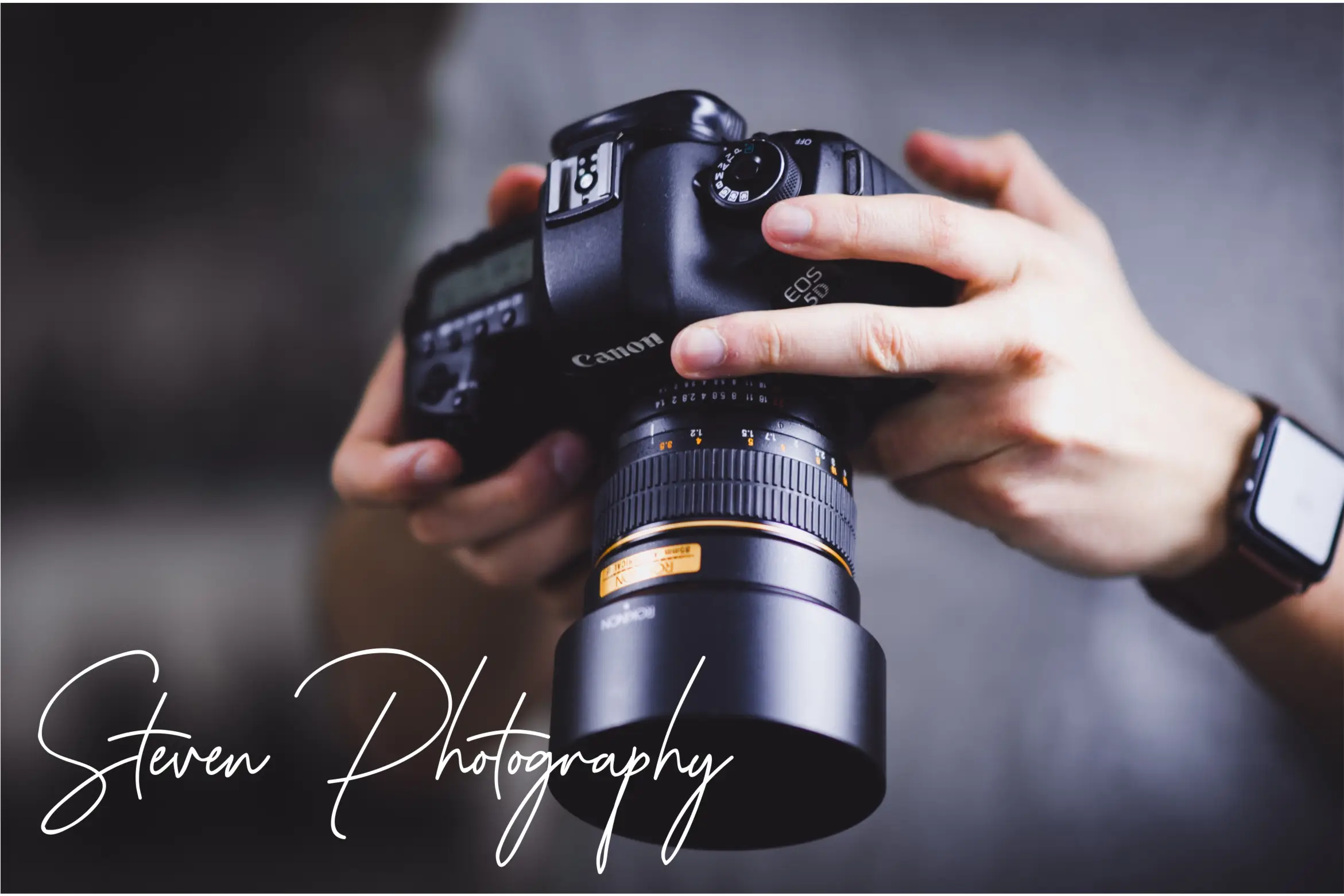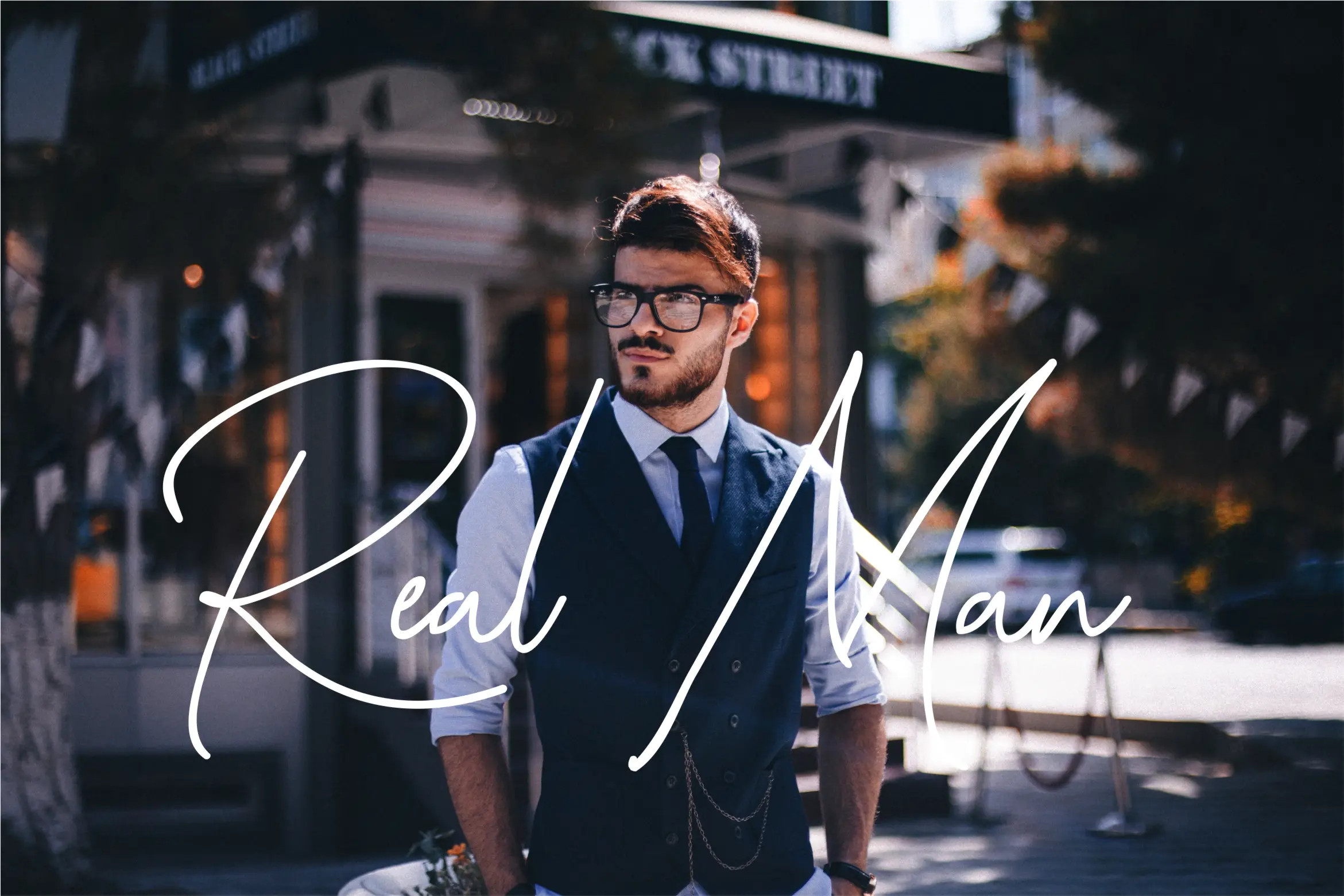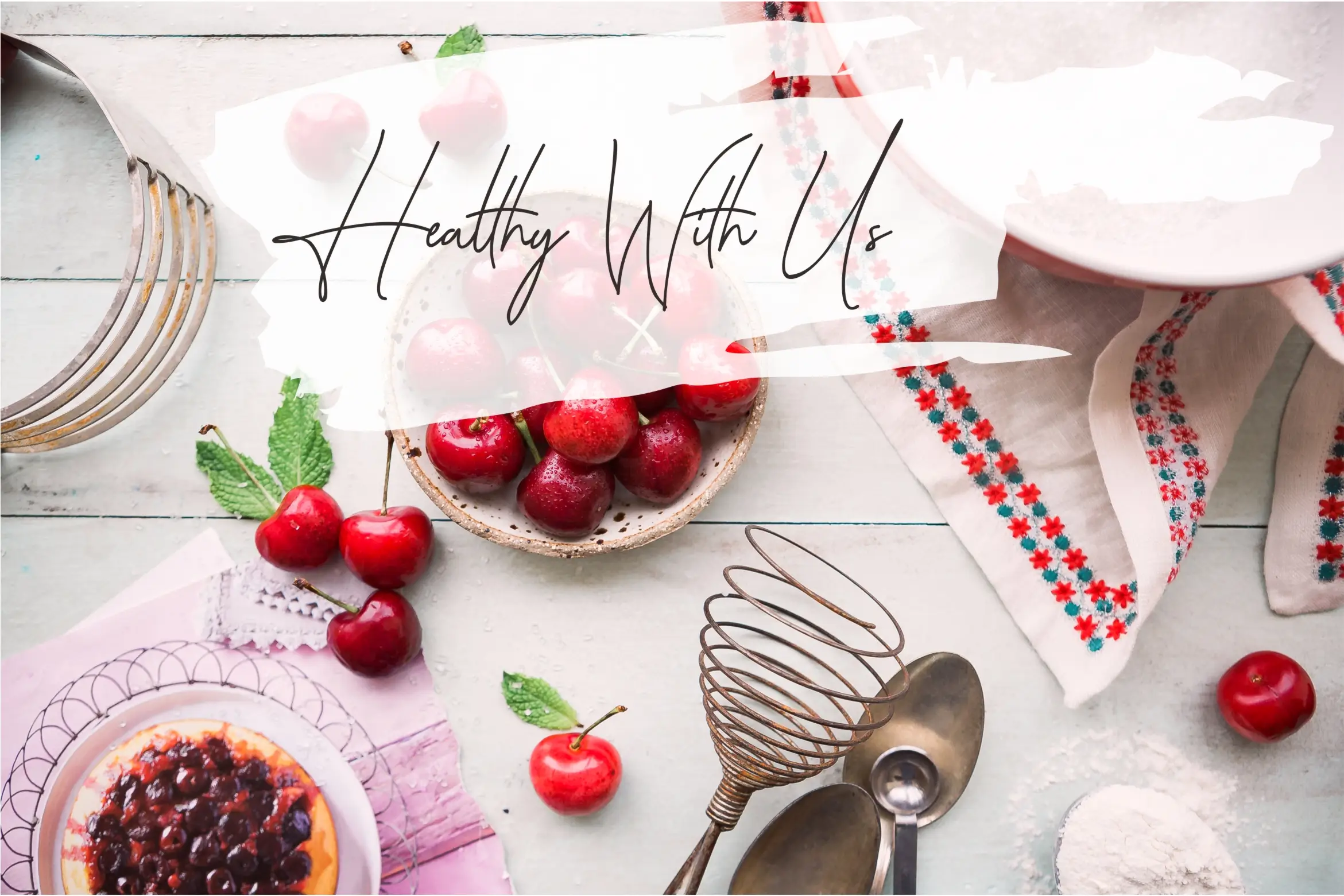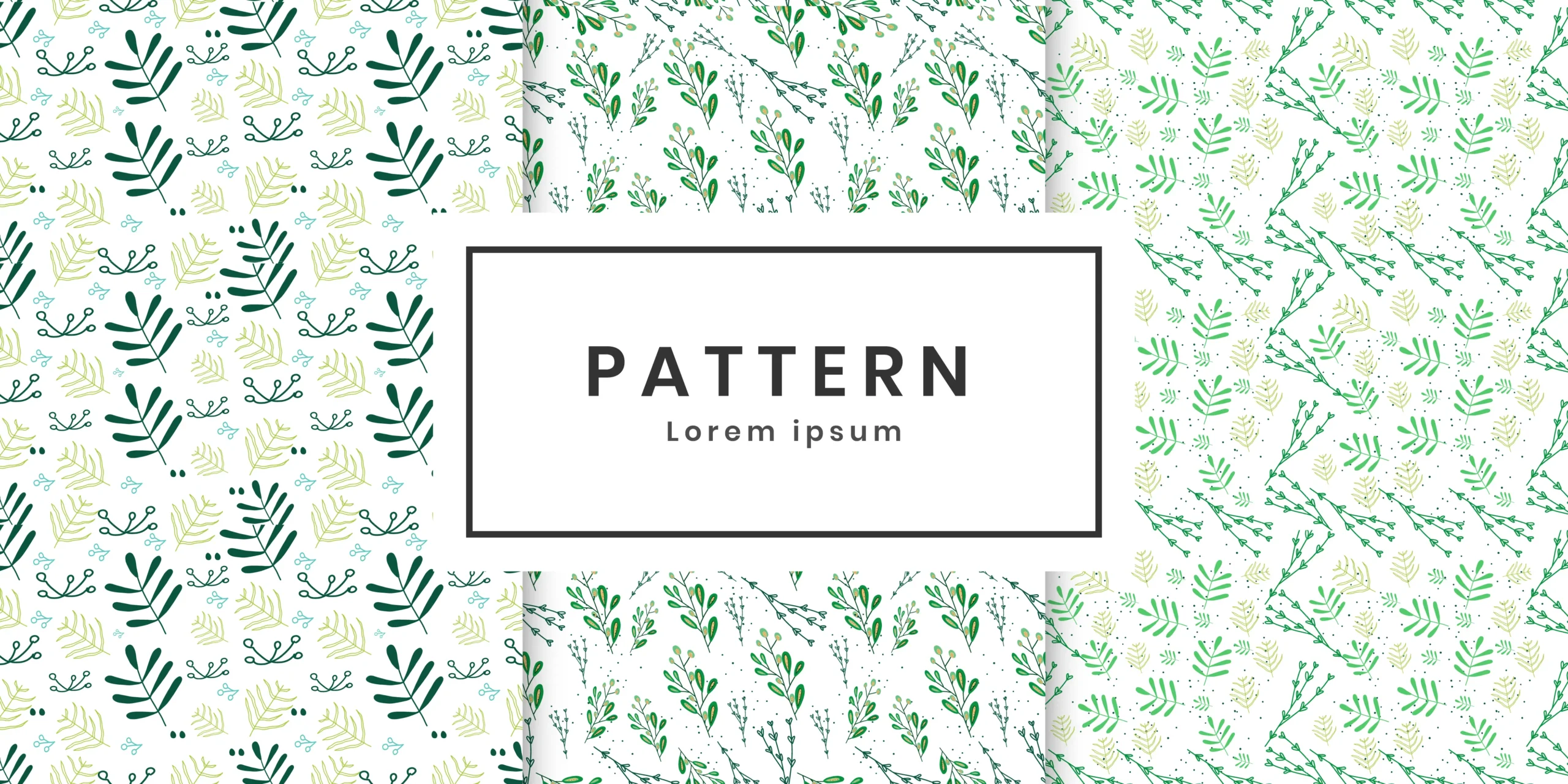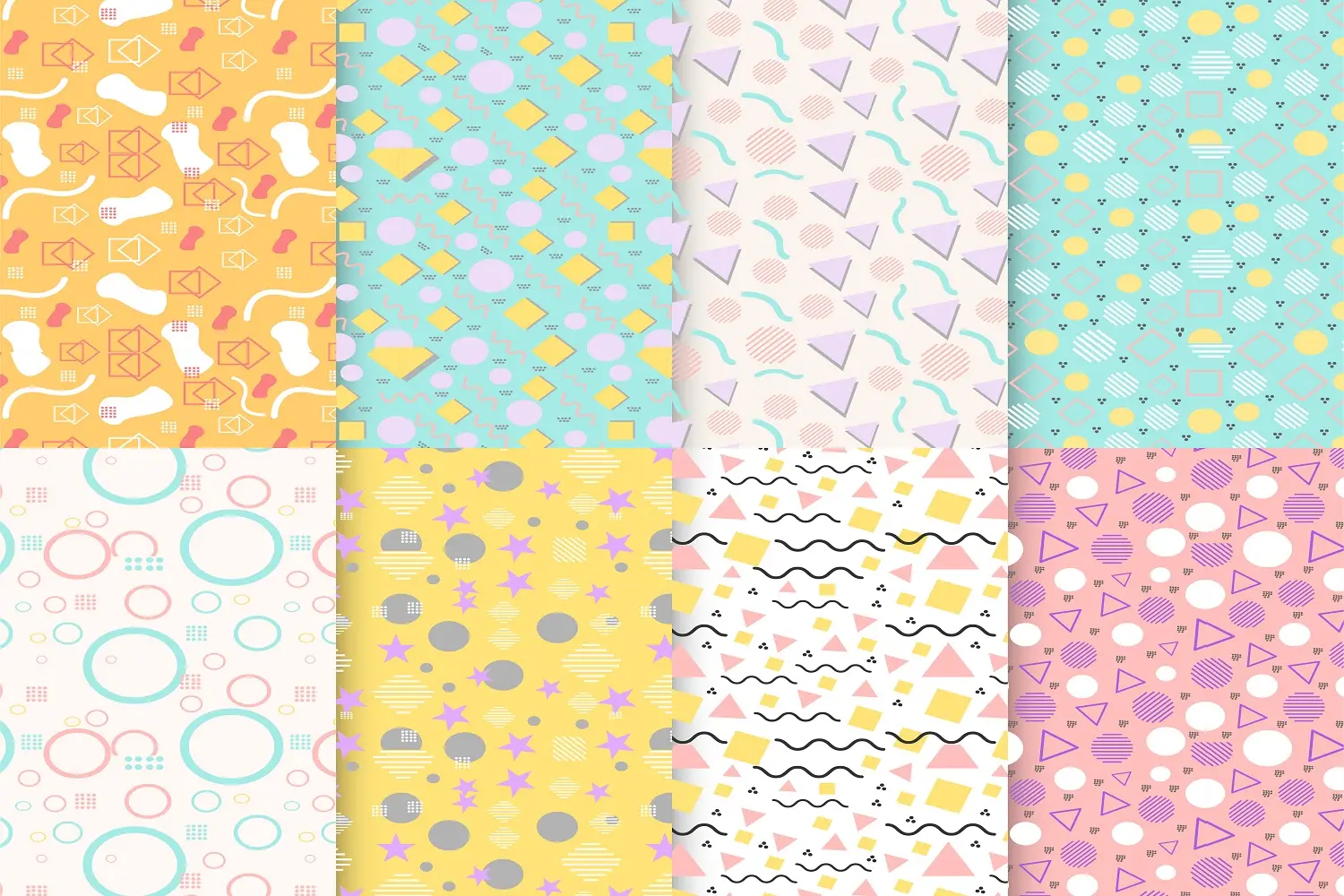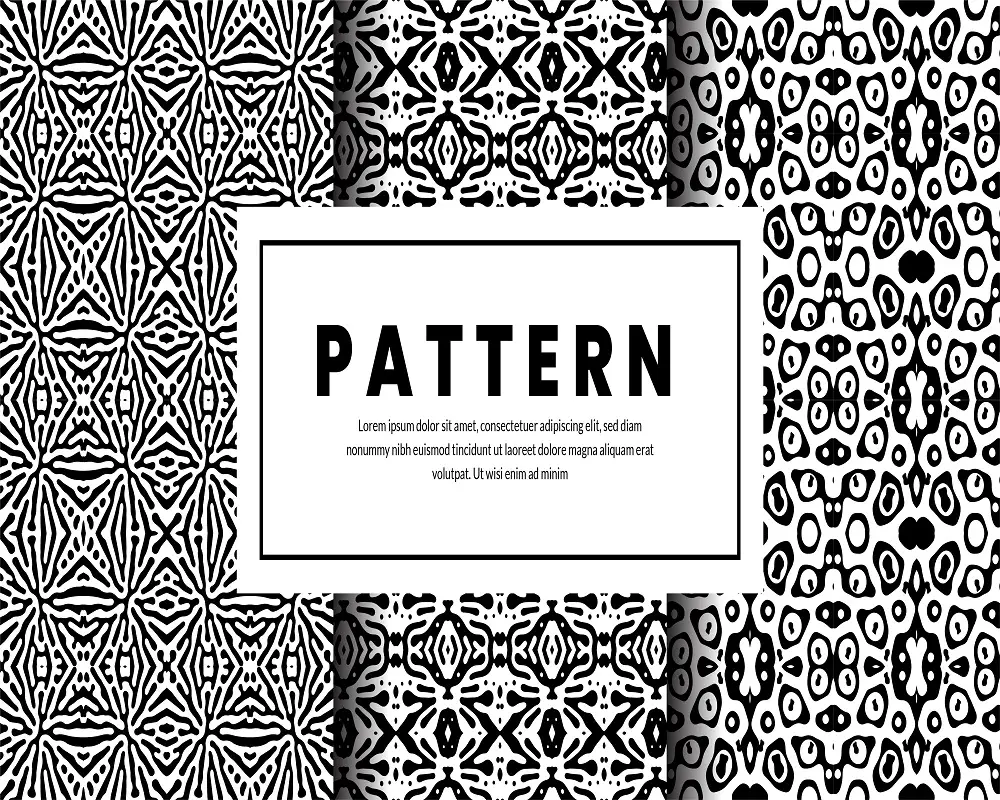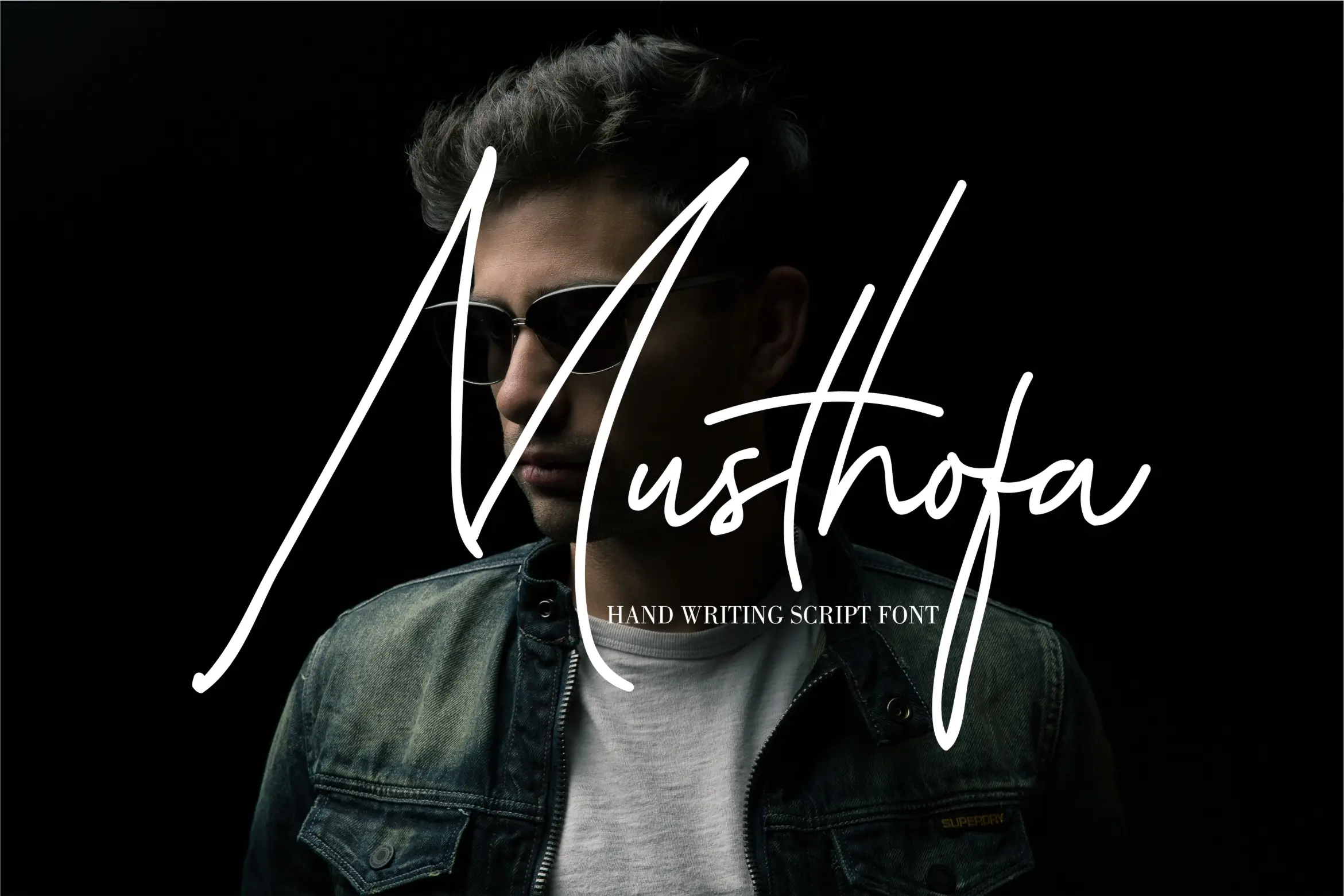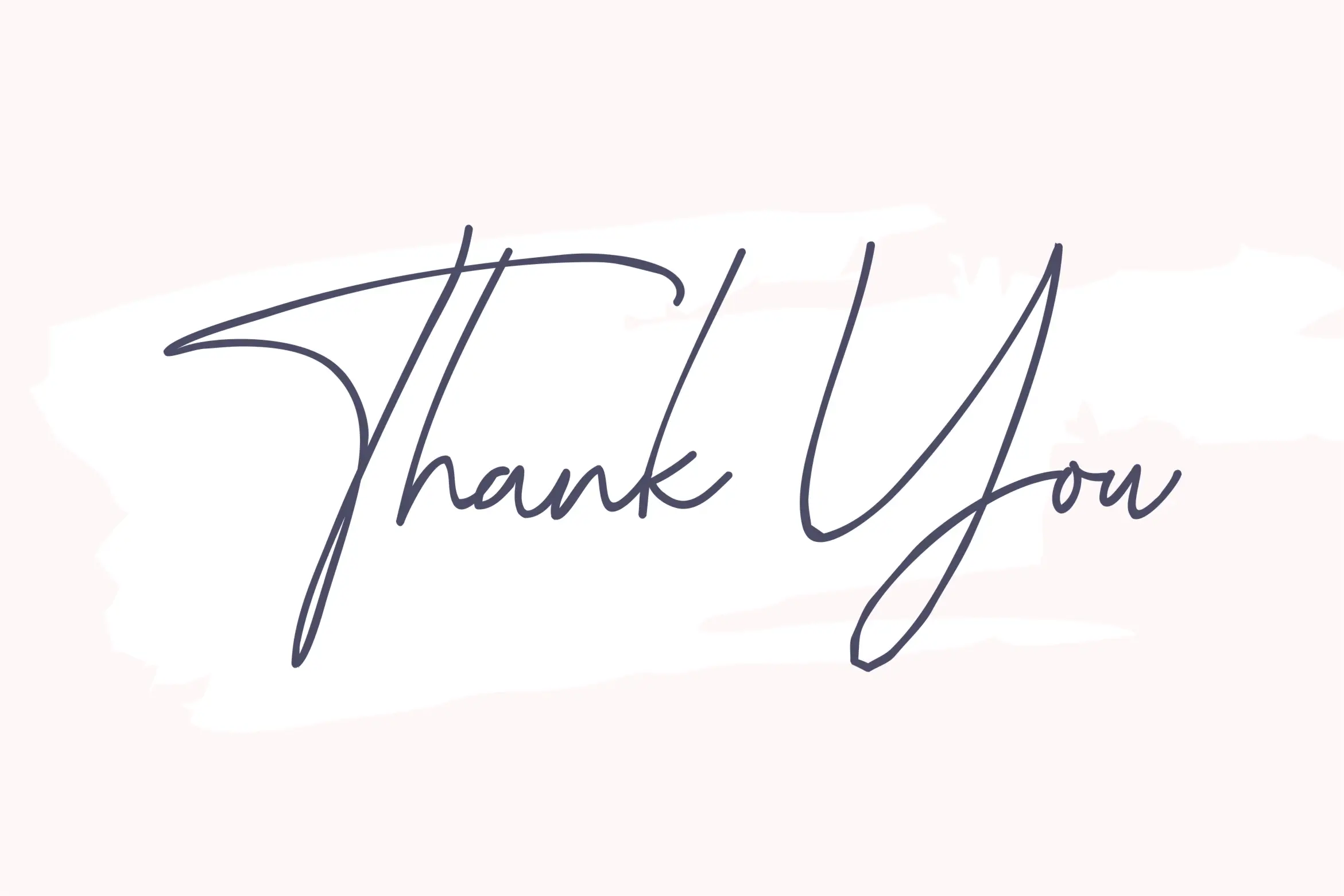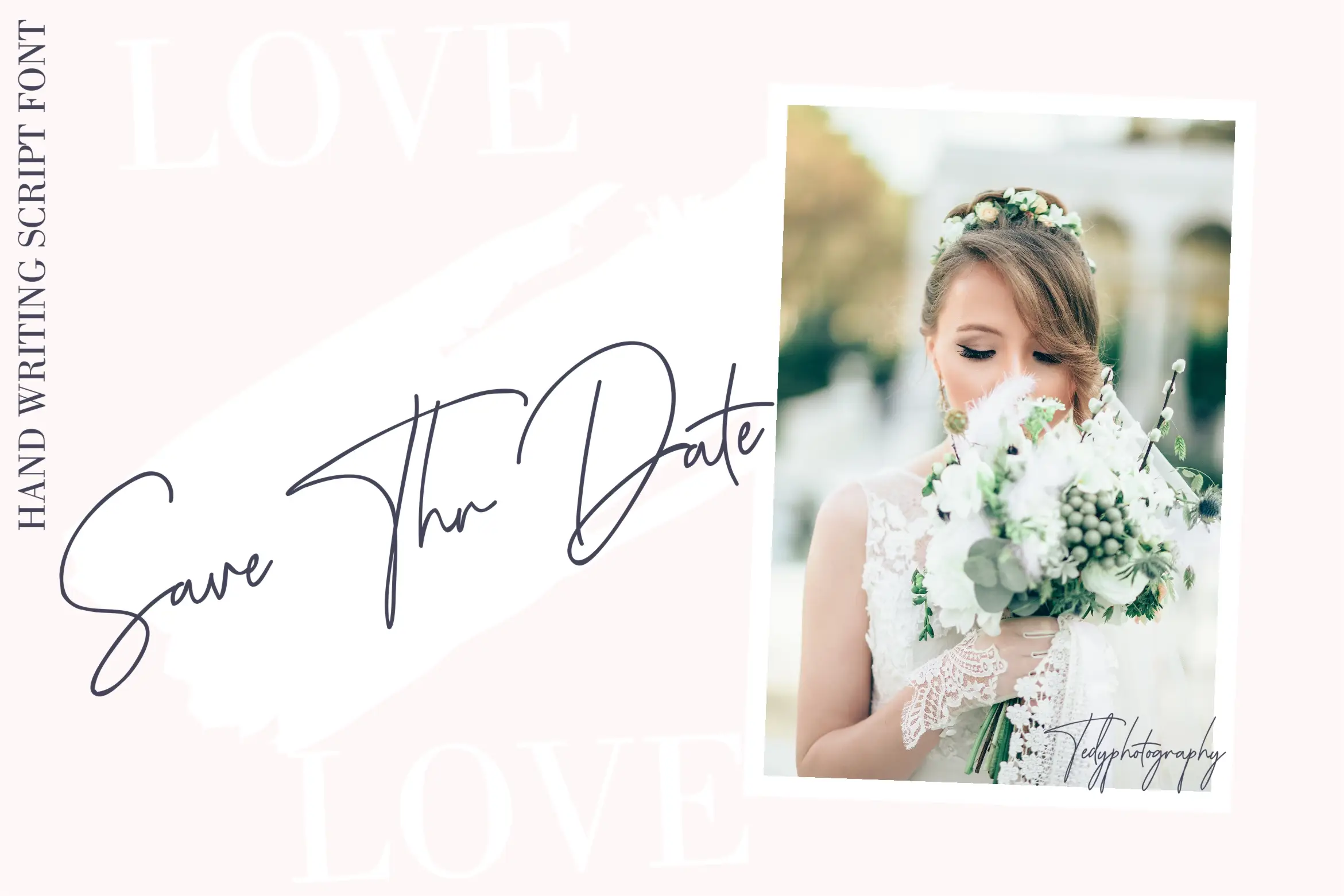
Fonts + Patterns Bundle
Introducing the Fonts + Patterns Bundle, a carefully curated collection designed for creative professionals and enthusiasts alike. This bundle features a variety of font styles and weights, ensuring you have the perfect typography for any project.
• Diverse font styles including serif, sans-serif, and script
• Multiple weights for each font to suit various design needs
• High-resolution patterns that complement the fonts
Utilize these fonts for branding, logos, print materials, and user interface designs. The included patterns can be used as backgrounds or decorative elements to enhance your projects.